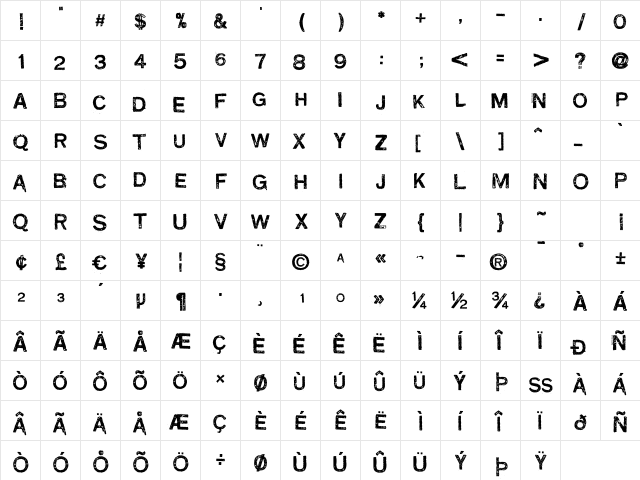
Carimbo Regular
Design Context for Carimbo Typeface
Carimbo is a composed and adaptable typeface that performs quietly and consistently across a wide range of design contexts.